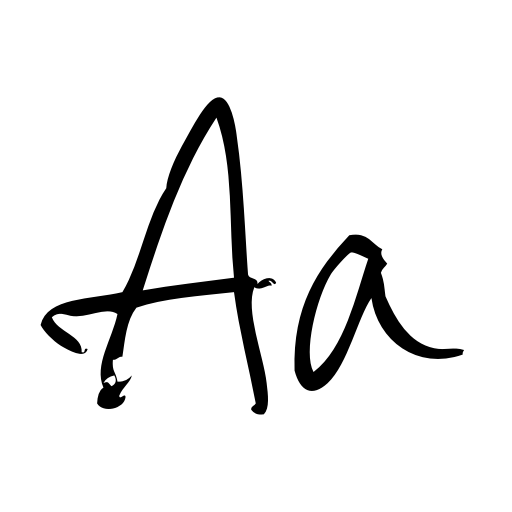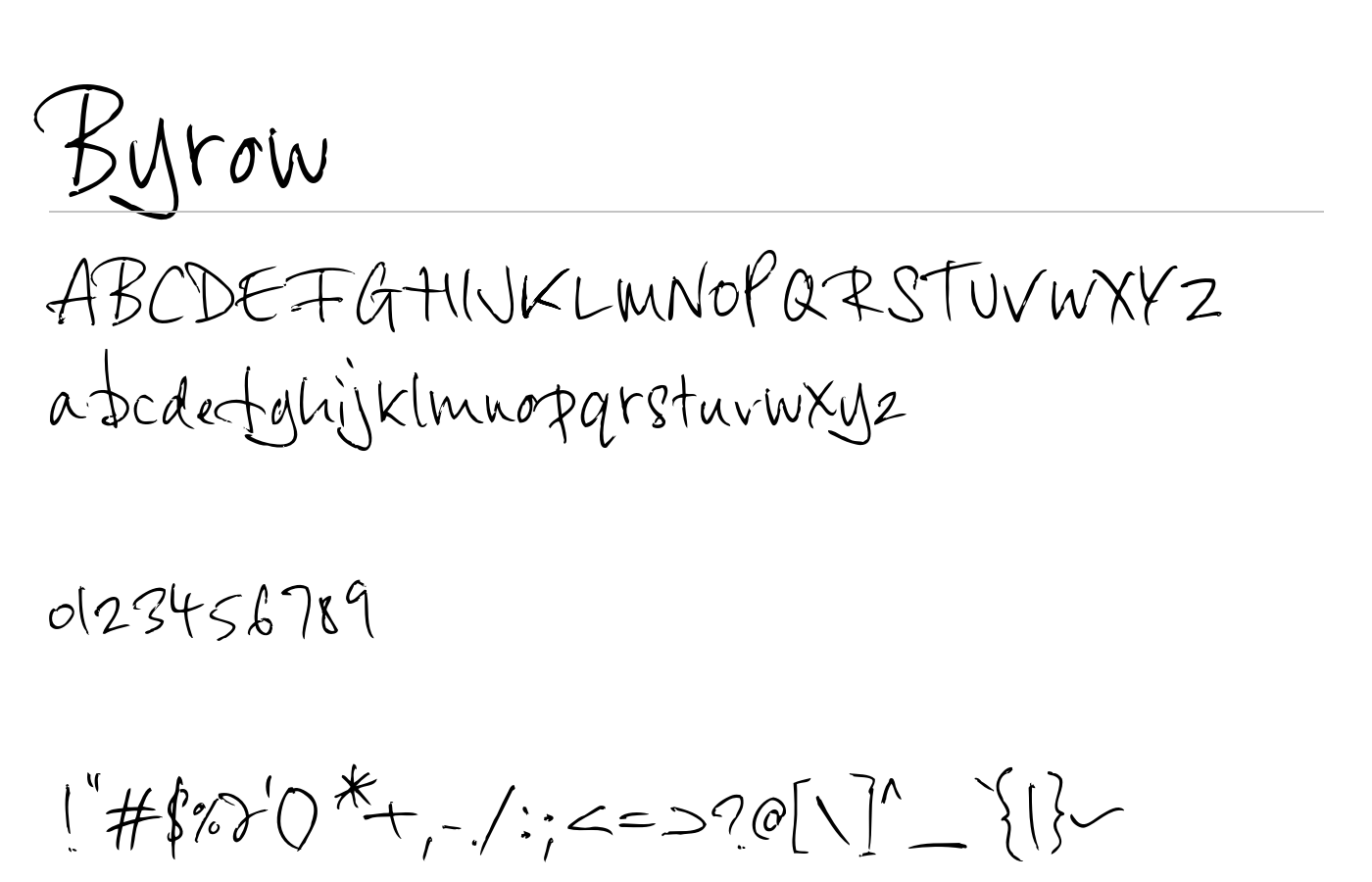
Byrow is a casual, handwritten font with a lively and personal feel. Its irregular strokes and varying line weights mimic natural handwriting, making it ideal for informal designs, creative projects, and personal branding that aim to convey approachability and warmth. This font works well for invitations, social media graphics, and any context where a friendly, authentic tone is desired.
Byrow Font
About Byrow Font
| Font family | Byrow Font |
| Release date | 2014-03-14 |
| Designer | Benjamin Green |